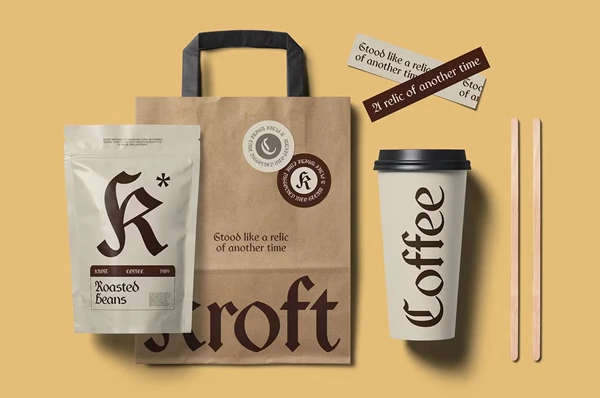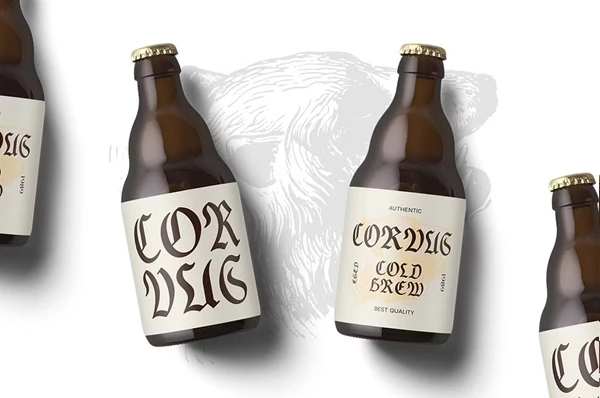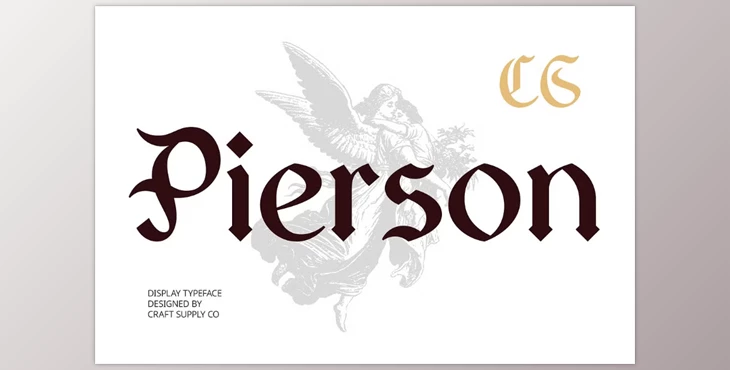
CS Pierson – Gothic Font:
CS Pierson is a sophisticated modern Gothic display typeface representing the combination of historical Gothic typography and modern aesthetics.
CS Pierson is best suited for high-end editorial branding and artistic media due to the gothic mysterious elegance.
Moreso, due to its dramatic visual finesse, it gives breath for projects that demand stylistic bold expressiveness.
Distinctively bold with sharp angles and outlining detail, this typeface is sculpted to offer striking visual appeal without sacrificing class.
Some great features of CS Pierson – Gothic Font:
- Available in Regular, Italic, and Reverse Italic styles
- Includes characters from A-Z and A-Z
- The sound of numbers and punctuation marks are OpenType-compliant
- X support from other languages with accent marks
"CS Pierson – Gothic Font" Samples: